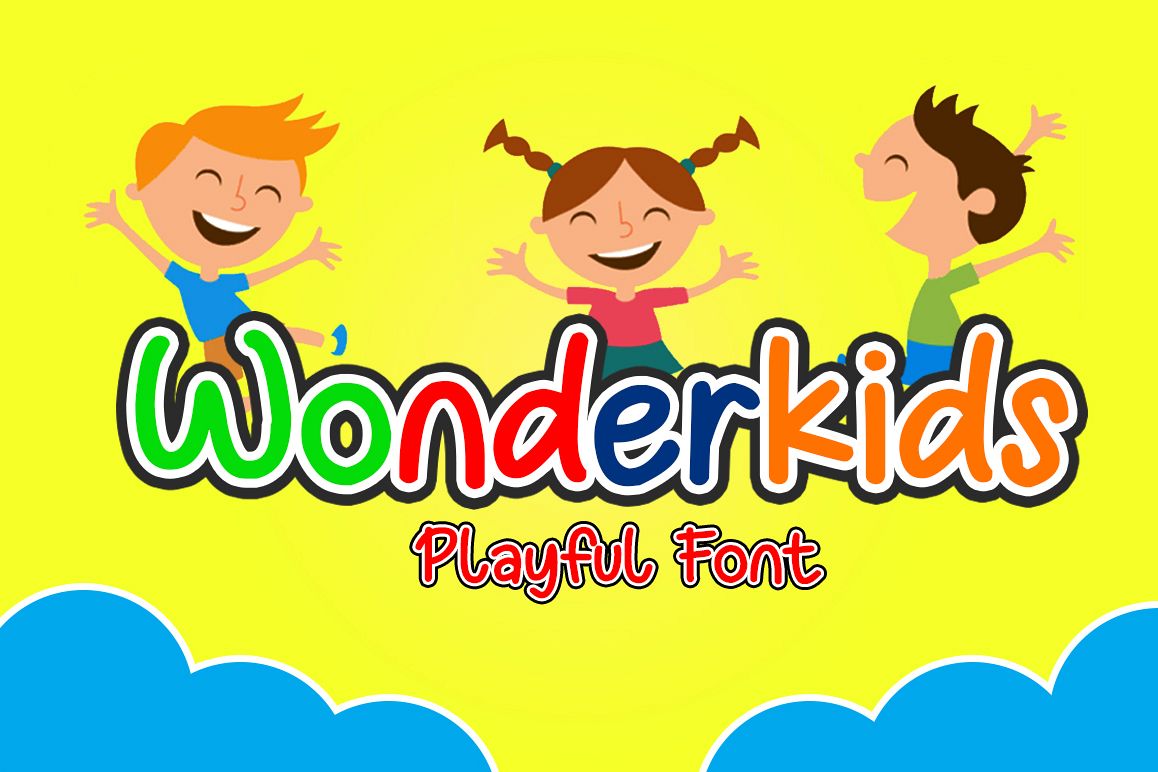
Wonderkids - Playful Kids
Wonderkids
This is our newest product called Wonderkids. Wonderkids is a fun and child-themed display font full of life. It will add a friendly and quirky feel to any design project!
This font is suitable for use on business cards,kids, t-shirt designs, logos, magazines, quotes, fashion, watermarks, invitations, signatures.